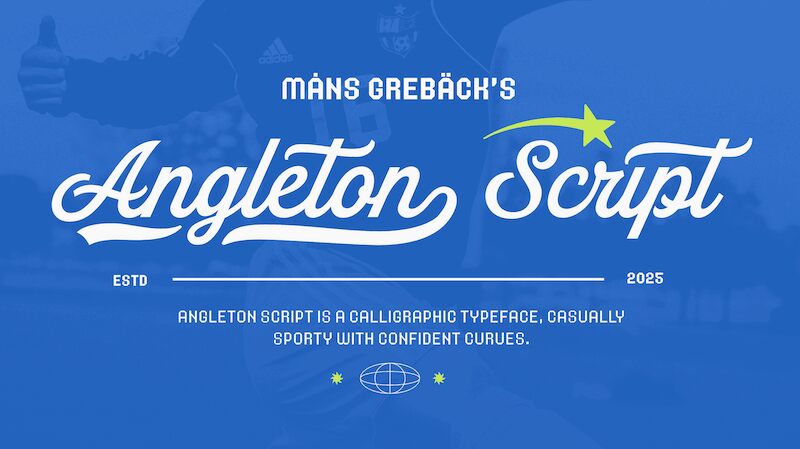
Angleton Script font
Angleton Script is a calligraphic typeface that combines a casually sporty style with confident curves.
Its versatile design makes it perfect for a team logotype, a classy invitation, or an eye-catching poster.
You can create swashes by using an underscore (_) in your text. For example: Ball_
By adding multiple underscores, you can create longer tails. For example: Champions_______